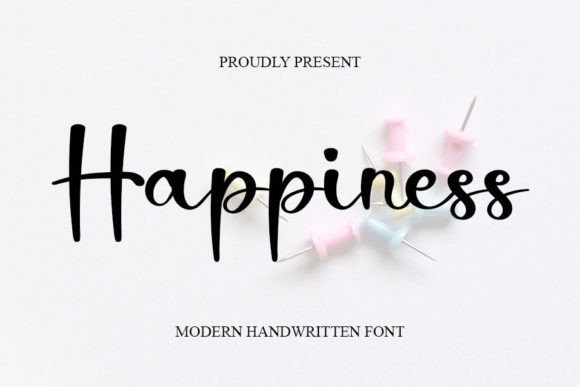
In a world saturated with digital monotony, individuality and creativity reign supreme. Allow us to introduce you to Happiness Font, a script typeface that embodies the essence of personal expression. Crafted with meticulous care and a touch of elegance, Happiness Font is the perfect instrument for those seeking to infuse their designs with a sprinkle of whimsy and a dash of sophistication.
Immerse yourself in a realm of charm and delight as you explore the intricacies of Happiness Font. Its clean lines and subtle quirks evoke a sense of playful sophistication that is sure to captivate and enchant. This enchanting font will seamlessly elevate your designs, transforming them into captivating works of art.
Picture your brand's logo adorned with the graceful strokes of Happiness Font, emanating an aura of warmth and approachability that draws customers in like moths to a flame. Envision your social media posts adorned with the lively charm of Happiness Font, captivating audiences with its infectious energy and irresistible appeal.
But Happiness Font's allure extends far beyond the digital realm. Unleash your creativity and let your imagination soar as you incorporate Happiness Font into your crafty DIY projects. Personalize greeting cards, scrapbook pages, and home décor items with the unique flair of Happiness Font, transforming them into cherished keepsakes imbued with your personal touch.
Unlike other fonts that blend into the background, Happiness Font demands attention. Its distinctive character and magnetic pull will ensure that your designs stand out from the crowd, leaving a lasting impression on all who encounter them.
With Happiness Font as your creative companion, the possibilities are endless. So, cast aside the ordinary and embrace the extraordinary. Let Happiness Font guide you on an artistic journey where your imagination knows no bounds. Embark on this adventure today and experience the transformative power of Happiness Font, a font that will ignite your creativity and bring unparalleled joy to your designs.